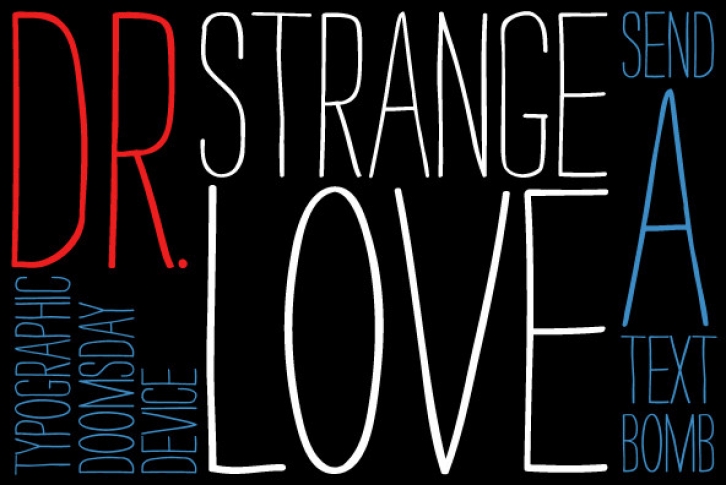
Strangelove is inspired by the title sequence of Stanley Kubrick's movie Dr. Strangelove. The original titles where designed by Pablo Ferro, who is one of the most acclaimed film title designers, especially famous for his hand-drawn lettering. In the first place our font was designed for an exhibition of the same topic. With the Bombs also come illustrations referring to scenes from the film.